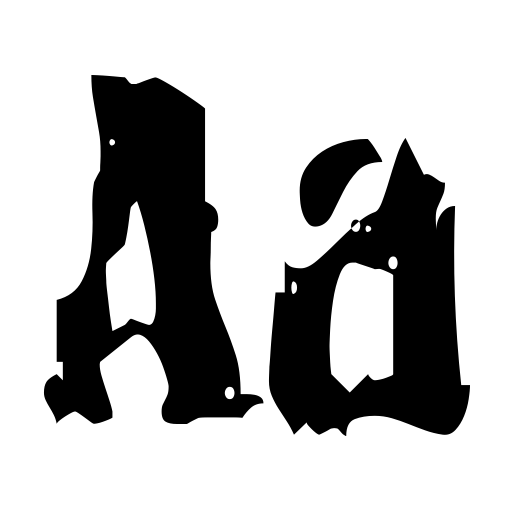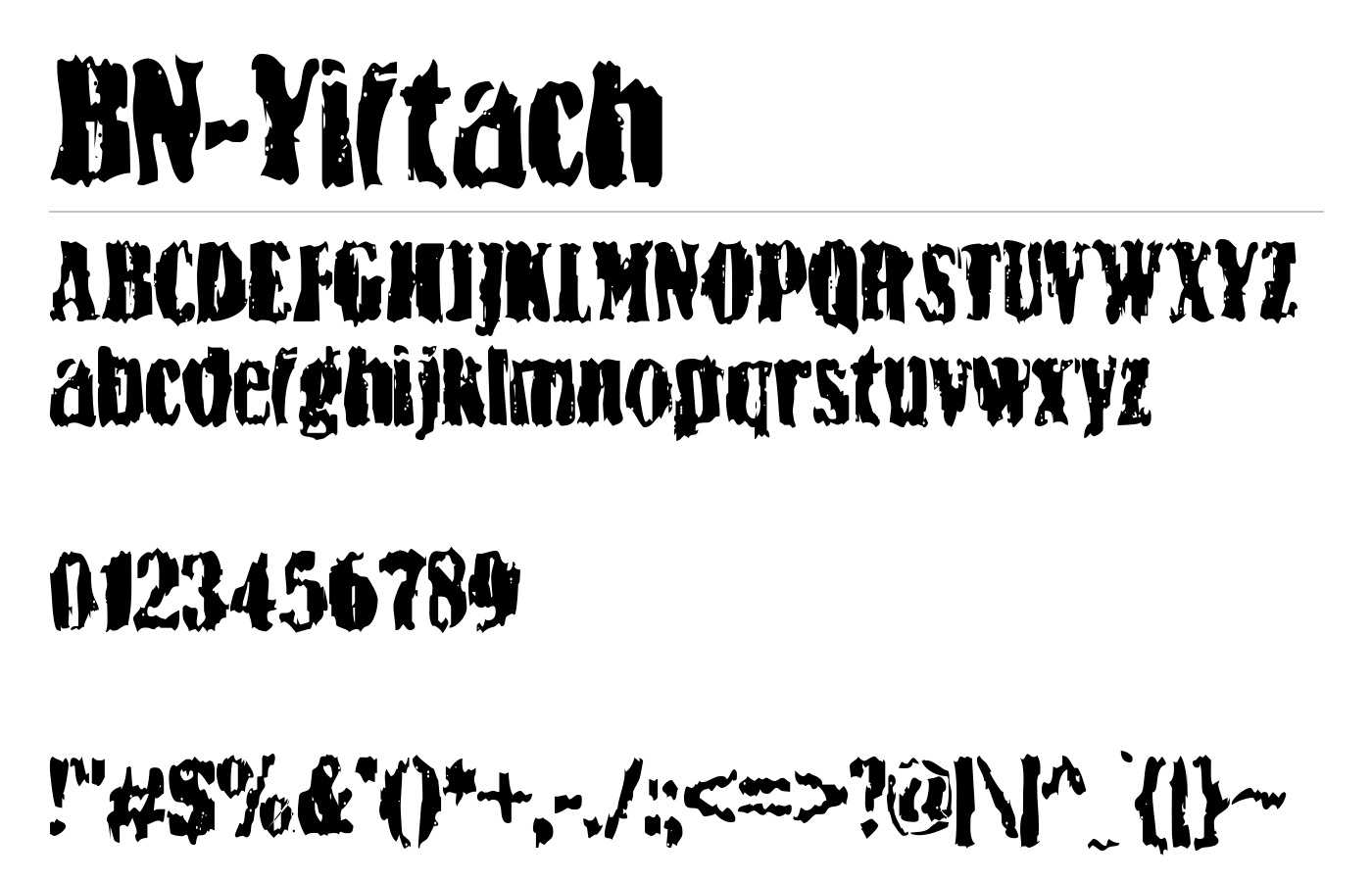
BN-Yiftach is a bold, decorative serif typeface with a distressed, rugged texture that gives it a vintage and edgy character. Its uneven, jagged edges and condensed letterforms make it ideal for attention-grabbing headlines, posters, or branding where a strong, dramatic impact is desired. This font works well for creative projects that seek to convey a raw, rebellious, or gritty mood.
BN-Yiftach Font
About BN-Yiftach Font